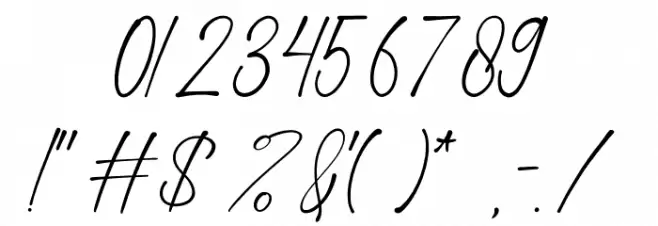
Calistha Font
Calistha Description
This font exudes a graceful and elegant handwritten style, characterized by its fluid and flowing letterforms. The uppercase letters are tall and slightly slanted, giving a sense of movement and sophistication. The lowercase letters maintain a consistent flow, with delicate loops and curves that enhance its cursive nature. The numerals are clear and legible, complementing the overall aesthetic. Special characters are thoughtfully designed to match the script's elegance, making it suitable for various creative applications.
A graceful and elegant handwritten script with fluid, flowing letterforms from Regular fonts.
- Font: Calistha
- Proposed Projects: Ideal for wedding invitations, greeting cards, branding, and elegant logo designs.
- Overall Style: Elegant
- Use Case: Logos, Invitations, Greeting Cards